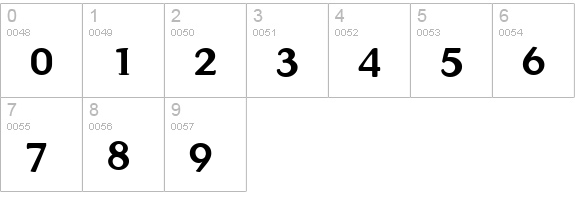
Artois Font Details
Artois font is a stunning display typeface that exudes elegance and sophistication. With its sleek lines and modern aesthetic, Artois is perfect for adding a touch of luxury to any design project. The clean and stylish letterforms of Artois make it ideal for branding, logos, invitations, and more. What's even better is that Artois font is available for free download at FontsMarket.com. Now you can easily access this beautiful font and enhance your creative projects without any cost. Don't miss out on the opportunity to elevate your designs with the timeless beauty of Artois font. Download it today and let your creativity soar!